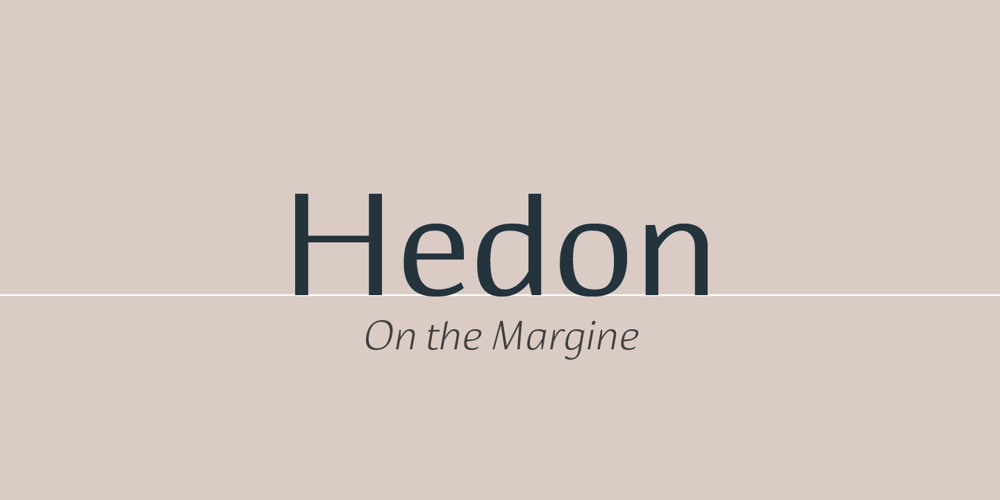
Hedon
Hedon font
Hedon Font Family was designed by Dusan Jelesijevic and published by Tour De Force. Hedon contains 8 styles and family package options. Hedon is hedonistic & humanistic, but not an egoistic, sans serif family that comes in 4 weights and matching italics. It declares itself a neutral, versatile and legible partner for any kind of publication, with a tiny dose of impressionable characteristics that softens its base.